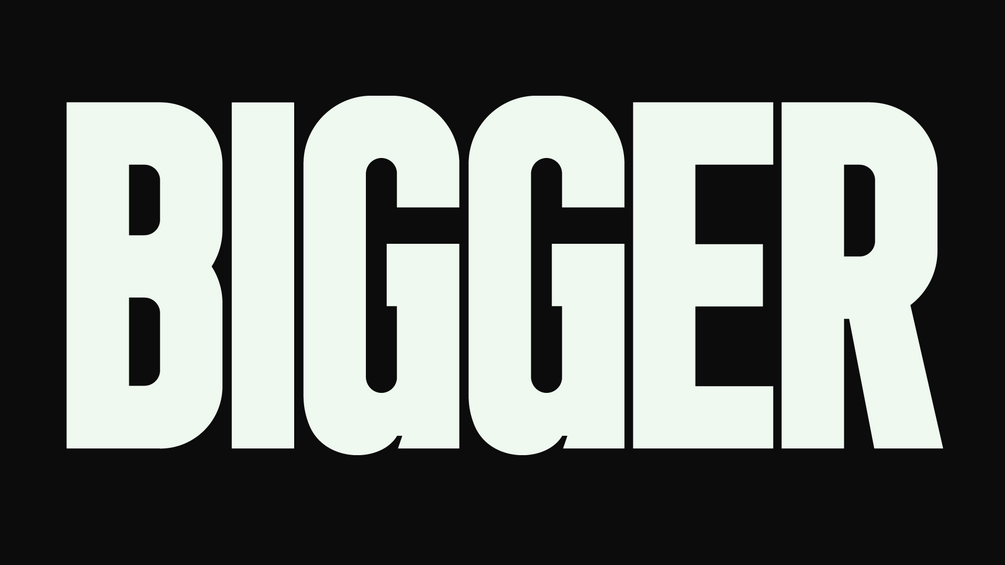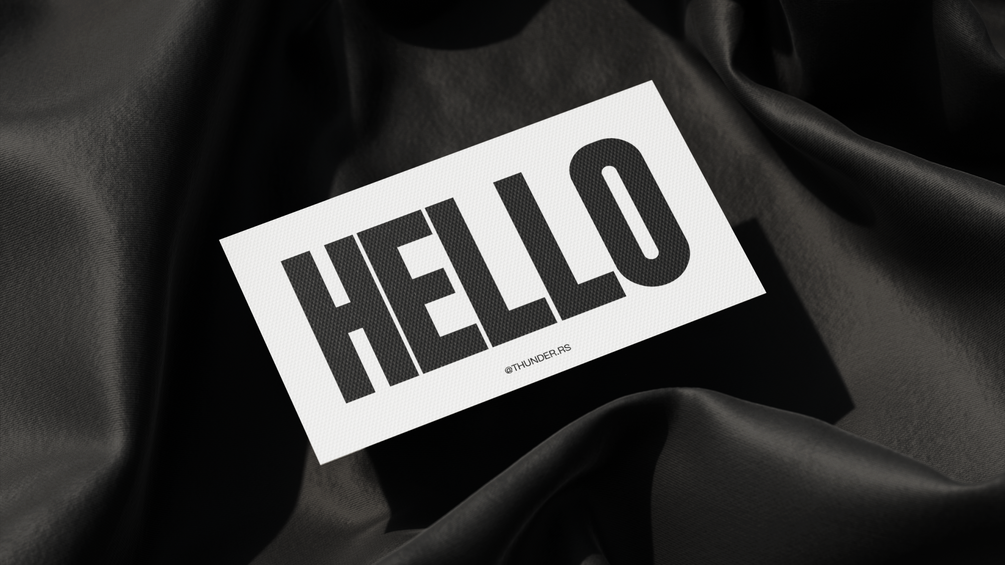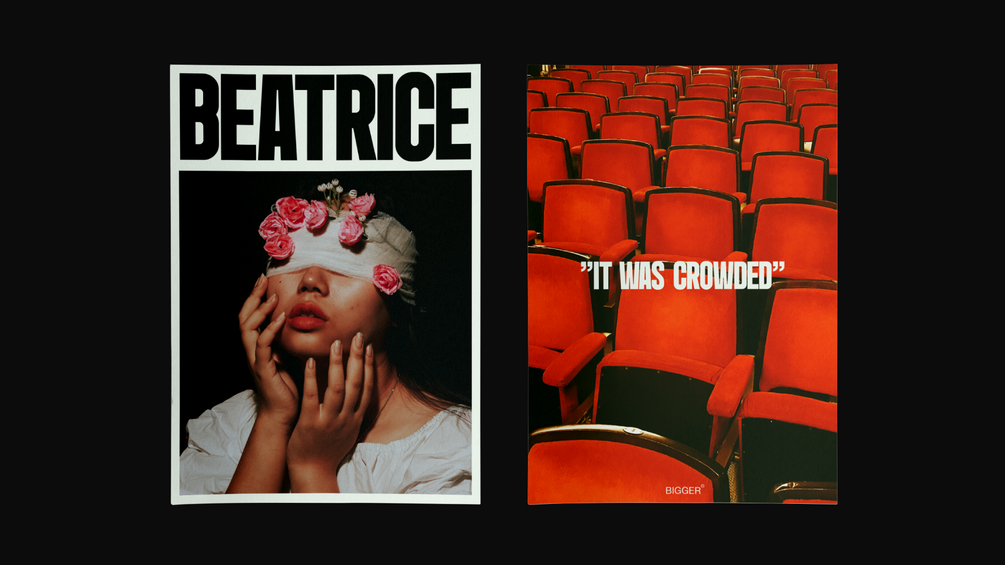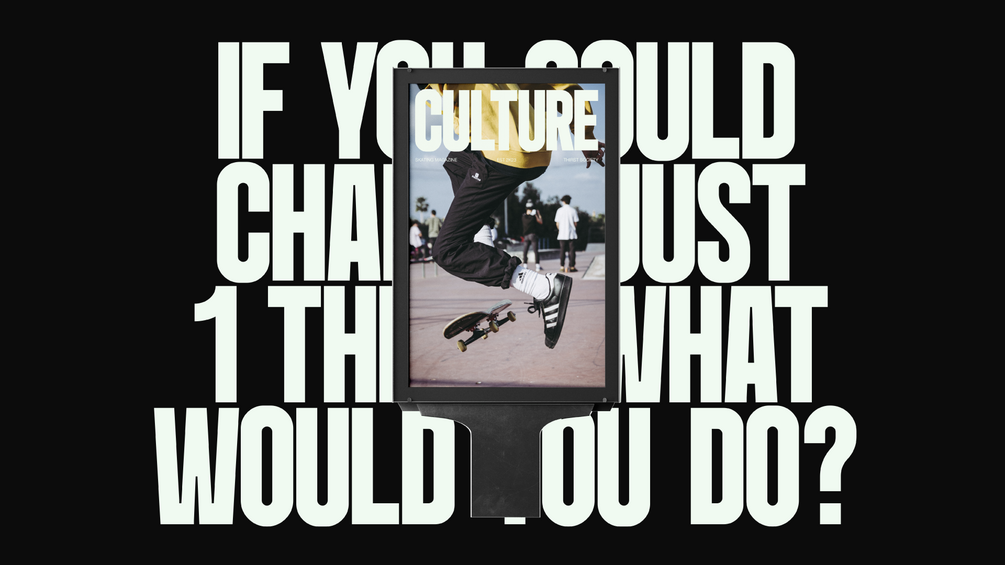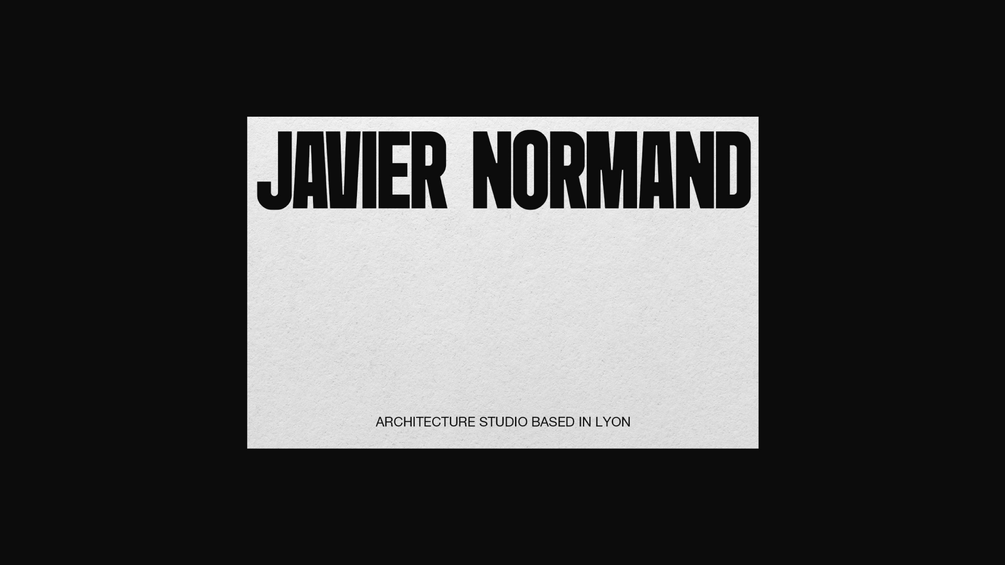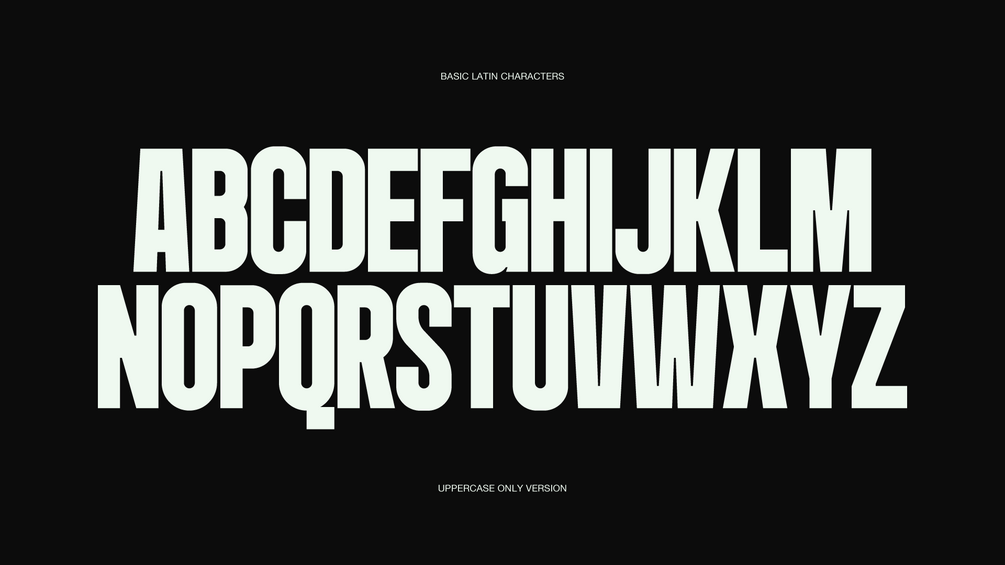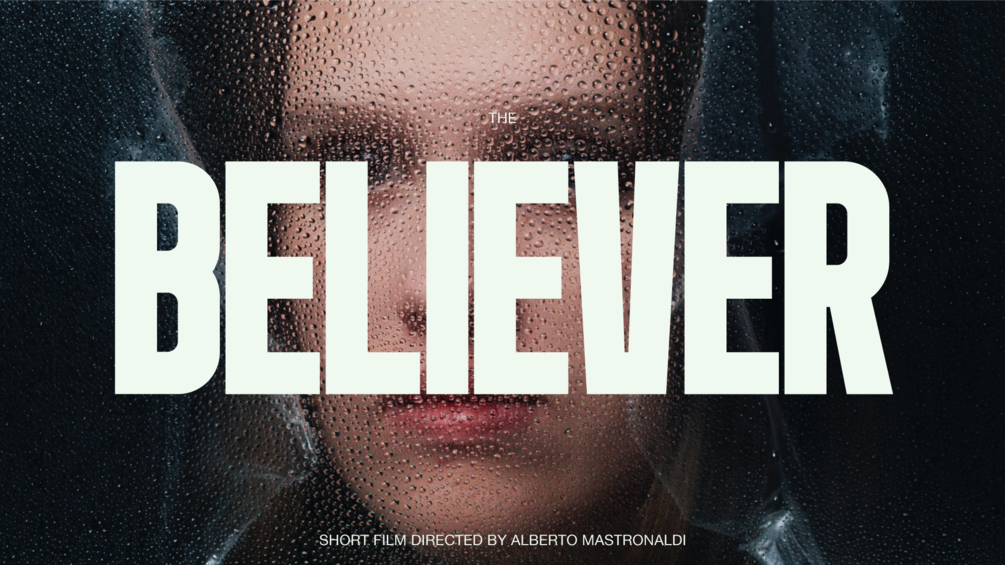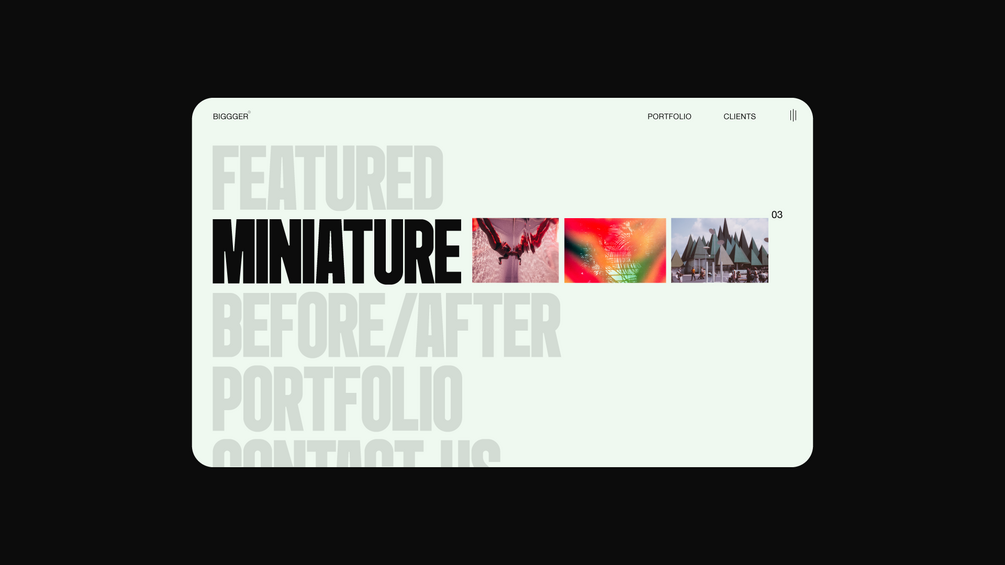
Bigger Display - Free Font
Bigger Display is a condensed display font designed to put an end to all discussions about display fonts! Inspired by PangramPangram's Formula and Helvetica Condensed, it's perfect when you need a quick and bold headline.
Bigger’s defining characteristic is condensed size, minimal roundness, and most important, a small “gap” in collisions. This gap emphasize the “blockiness” of the font and also gives Bigger it’s original look.